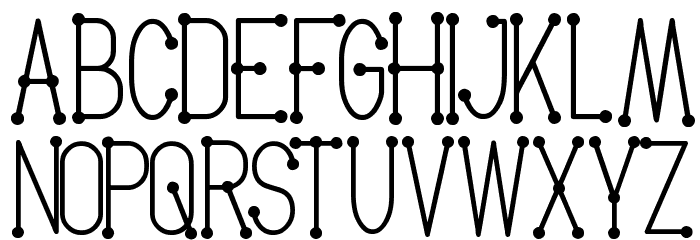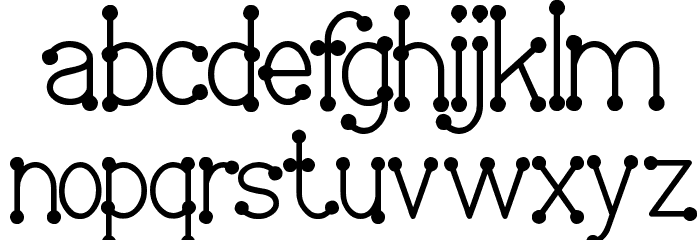
Welcome To Planet Earth Font
This font features a unique and playful design, characterized by its dotted connections between strokes. Each letter is constructed with a series of dots linked by thin lines, creating a whimsical and modern appearance. The uppercase and lowercase letters maintain a consistent style, with rounded edges and a uniform height. Numbers and special characters are also designed with the same dotted motif, ensuring a cohesive look across all glyphs. The font's distinct style makes it stand out, offering a creative and artistic vibe that is both eye-catching and memorable.
A playful, dotted font with connected strokes and a modern, artistic style.
- Proposed Projects: Ideal for creative projects such as children's books, playful branding, artistic posters, and unique invitations.
- Use Case: Logos, Posters, Creative projects